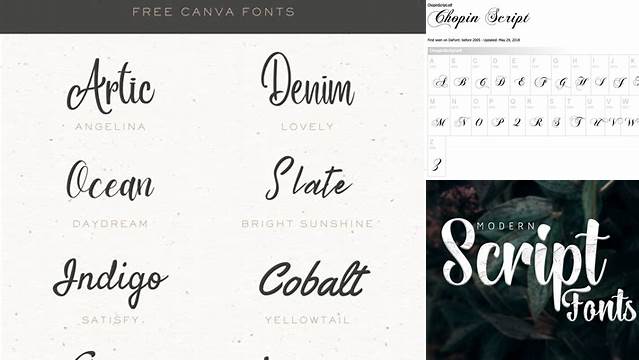
Dafont's Best Modern Script Fonts: A Designer's Guide
Hey guys! Looking to add a touch of elegance and personality to your designs? Then you've probably dived into the world of script fonts. And if you're exploring options, Dafont is a treasure trove! But with so many choices, it can get overwhelming. That's where I come in. Let's explore some stunning modern script fonts you can find on Dafont, and how to make the most of them.
What Makes a Script Font "Modern?"
Before we jump into specific fonts, let's clarify what we mean by "modern script." Traditionally, script fonts mimic handwriting, often with flowing connections between letters. A modern script font takes that foundation and adds a contemporary twist. Here's what to look for:
- Clean Lines: Less ornate flourishes and more streamlined letterforms.
- Geometric Influences: You might see subtle geometric shapes incorporated into the design.
- Contrast: A noticeable difference in stroke thickness can give a font a modern edge.
- Versatility: Modern script fonts often work well in a variety of applications, not just formal invitations.
- Readability: While still decorative, modern scripts prioritize readability over elaborate embellishments.
Top Modern Script Fonts on Dafont
1. The "Brushstroke" Beauty
Brushstroke script fonts are characterized by their natural, hand-painted feel. They often mimic the look of actual brushstrokes, adding a dynamic and artistic touch to your designs. These fonts are perfect for projects where you want to convey energy, creativity, and authenticity. Imagine using a brushstroke script for a blog header about art, a motivational poster, or even a logo for a creative agency. The imperfections inherent in the brushstroke style lend a human touch that can make your message more relatable and engaging.
When selecting brushstroke fonts, pay attention to the level of detail and texture in the strokes. Some fonts may have rough, bold strokes that create a strong visual impact, while others might have finer, more delicate strokes that convey elegance and sophistication. Consider the overall mood you want to create and choose a font that aligns with your vision. For example, a thick, textured brushstroke font might be ideal for a rock band's poster, while a thin, refined brushstroke font could be perfect for a wedding invitation with a modern twist. Experiment with different font sizes and colors to see how they affect the overall look and feel.
Furthermore, think about the context in which you'll be using the brushstroke font. Will it be paired with other fonts? If so, choose complementary fonts that balance the visual weight and style of the script. Sans-serif fonts often work well as a contrast to brushstroke scripts, providing a clean and modern counterpoint. Also, consider the background on which the font will be displayed. A busy background might make a delicate brushstroke font difficult to read, while a simple background can allow the font to truly shine. Ultimately, the key is to experiment and find what works best for your specific project and aesthetic.
2. The "Clean & Chic" Option
Clean and chic script fonts offer a refined and minimalist take on traditional script styles. These fonts are characterized by their smooth lines, subtle curves, and overall simplicity. They are perfect for projects that require a touch of elegance without being overly ornate or fussy. Think of logos for luxury brands, website headers for fashion blogs, or even wedding invitations that exude modern sophistication. The understated nature of these fonts makes them incredibly versatile and easy to incorporate into a wide range of designs.
When working with clean and chic script fonts, focus on creating a sense of balance and harmony. These fonts often look best when paired with simple, sans-serif fonts that complement their clean lines. Pay attention to the spacing between letters and words, ensuring that the text is easy to read and visually appealing. Experiment with different font weights to add subtle variations and emphasis. For example, using a slightly bolder weight for headings can help them stand out without disrupting the overall minimalist aesthetic. Also, consider the color palette you're using, opting for soft, muted tones that enhance the font's elegance.
Moreover, clean and chic script fonts can be particularly effective in creating a sense of exclusivity and sophistication. They evoke a feeling of understated luxury, making them ideal for brands that want to project an image of quality and refinement. However, it's important to avoid using these fonts in a way that feels sterile or impersonal. Add personal touches through imagery, color, and other design elements to create a warm and inviting experience for your audience. Remember, the goal is to strike a balance between elegance and approachability, creating a design that is both visually stunning and emotionally engaging. By carefully considering these factors, you can leverage the power of clean and chic script fonts to elevate your designs and communicate your brand's message effectively.
3. The "Geometric Twist" Delight
Geometric twist script fonts represent a fascinating fusion of organic and structured design elements. These fonts blend the flowing, handwritten characteristics of script fonts with the precise, angular forms of geometric typography. The result is a unique and eye-catching style that conveys both creativity and modernity. Imagine using a geometric script font for a tech startup's branding, a poster for an architectural exhibition, or even a book cover that aims to capture a sense of innovation and forward-thinking design.
Modern script fonts can add a touch of personality and flair to your designs. By understanding what makes a script font "modern" and exploring the vast selection available on Dafont (and beyond!), you can find the perfect font to elevate your projects. Just remember to always check those licenses and use your fonts wisely! Happy designing, guys!